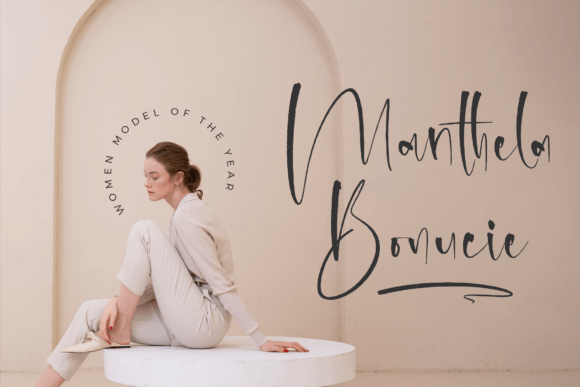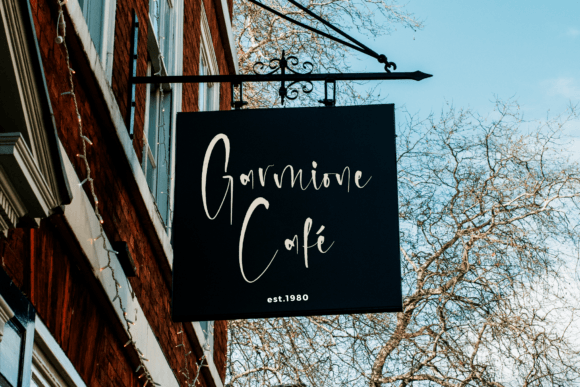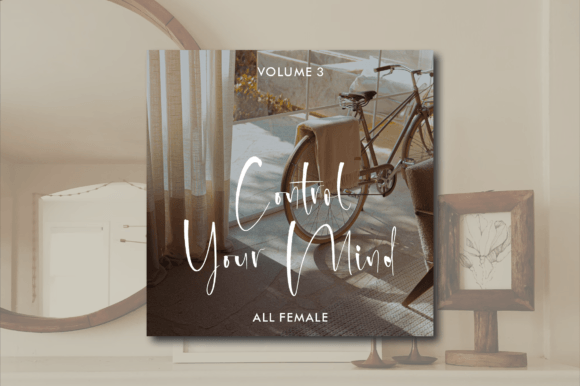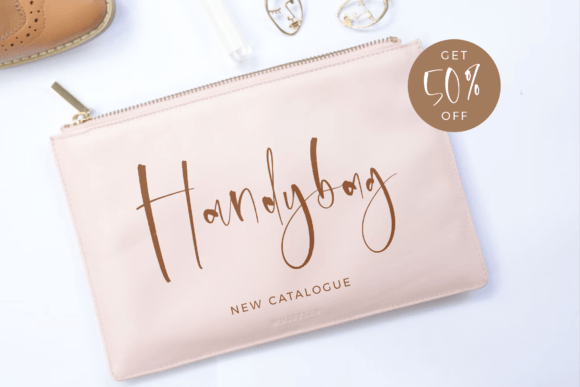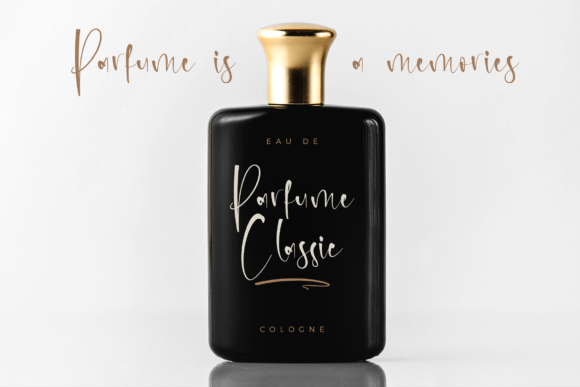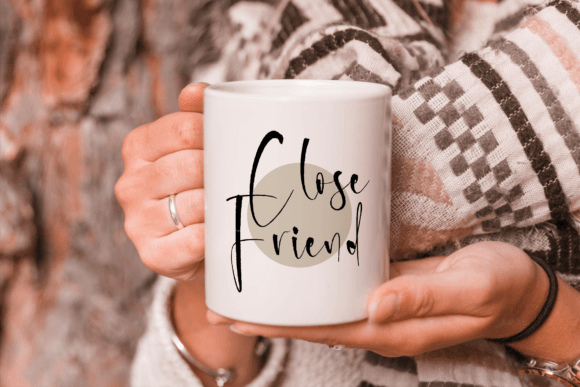
Introduction to Santeriogh Font
Santeriogh is a romantic and sweet calligraphy typeface with characters that dance along the baseline.
It has a casual, yet elegant touch .